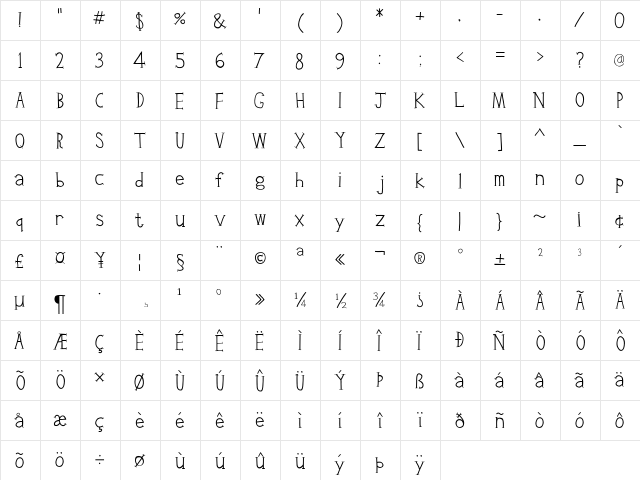
Clink Regular
| Foundry | Pointy Design |
| Designer | James Beardmore |
Design Context for Clink Typeface
Clink offers clean, dependable letterforms without strong stylistic allegiance, making it a practical choice for designers who need flexibility.